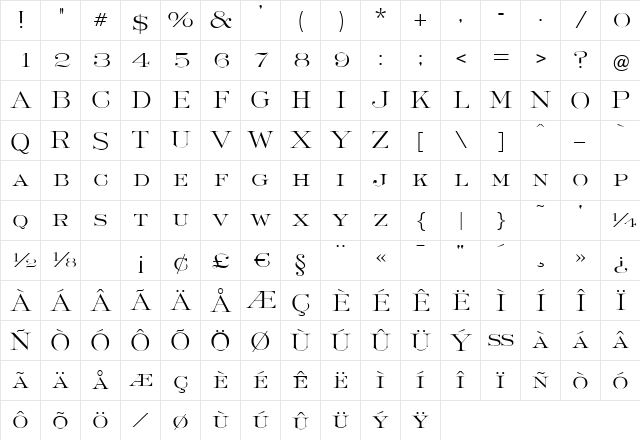
F730-Deco Regular
Design Context for F730-Deco Typeface
F730-Deco is a composed and adaptable typeface that performs quietly and consistently across a wide range of design contexts.